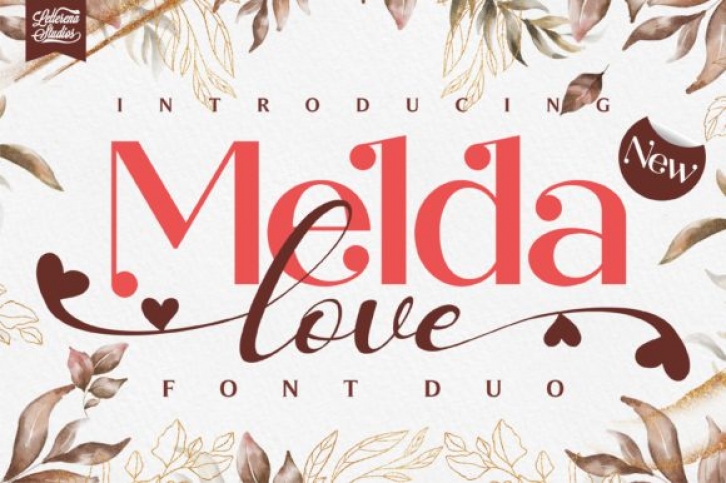
Melda Love is a beautiful, romantic, and incredibly versatile duo font (display and handwritten). It has a casual, yet elegant touch. It can be used for various purposes such as logos, wedding invitations, headings, t-shirts, letterhead, signage, labels, news, posters, badges and so much more.